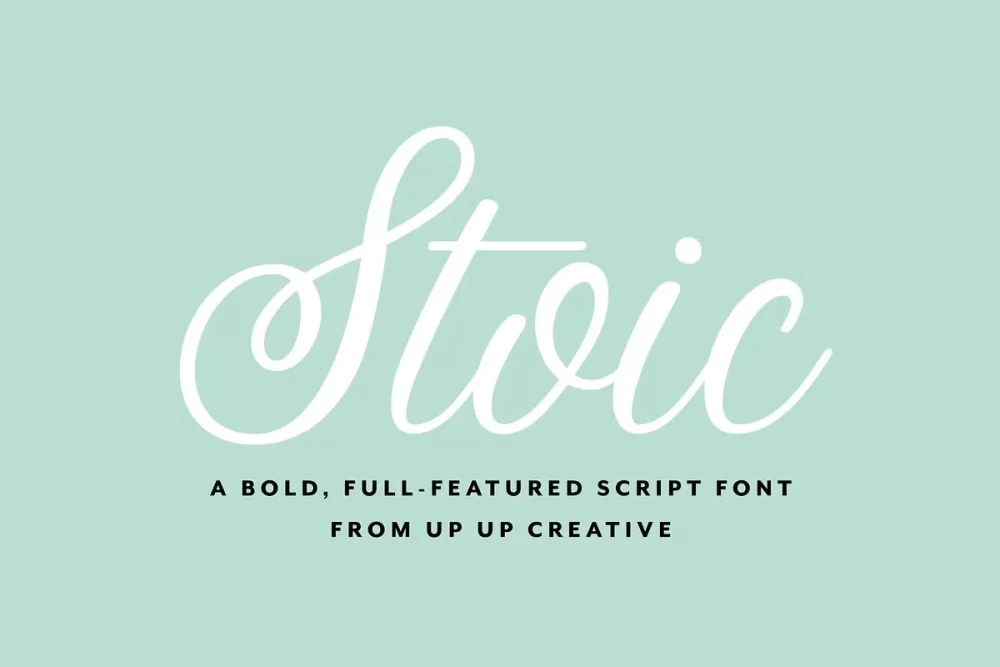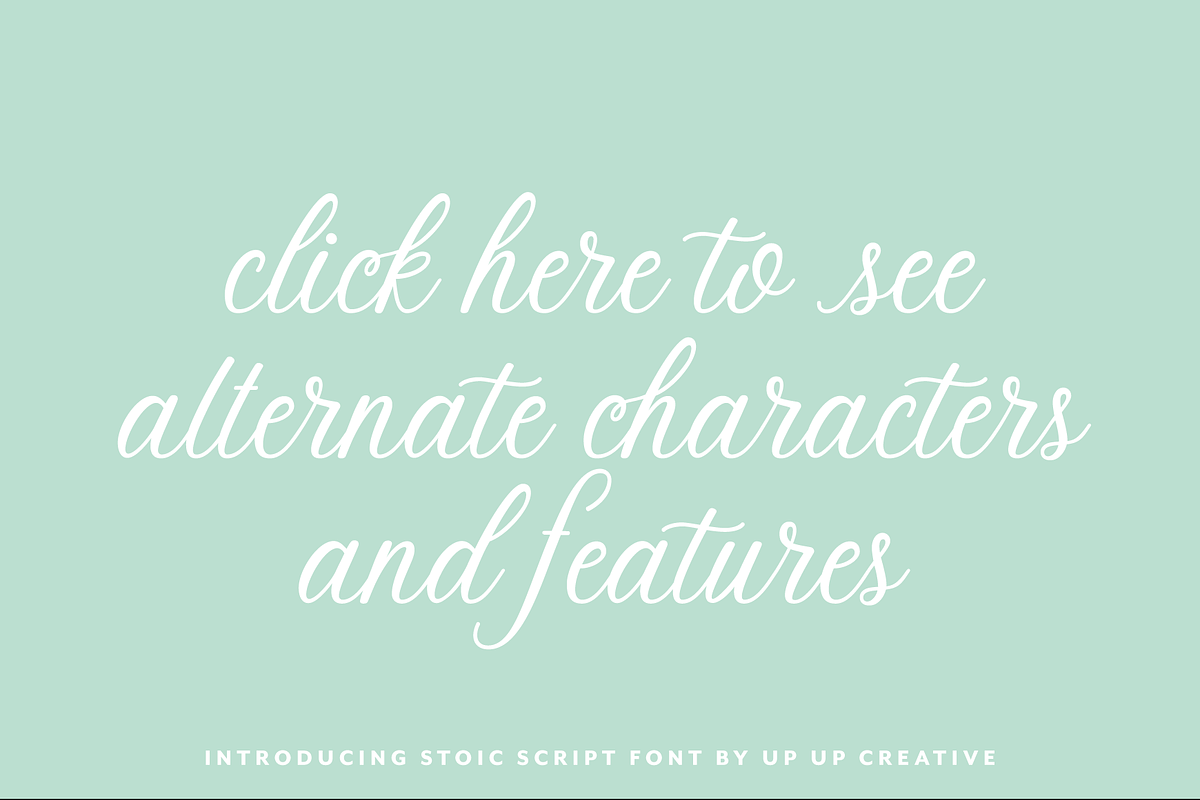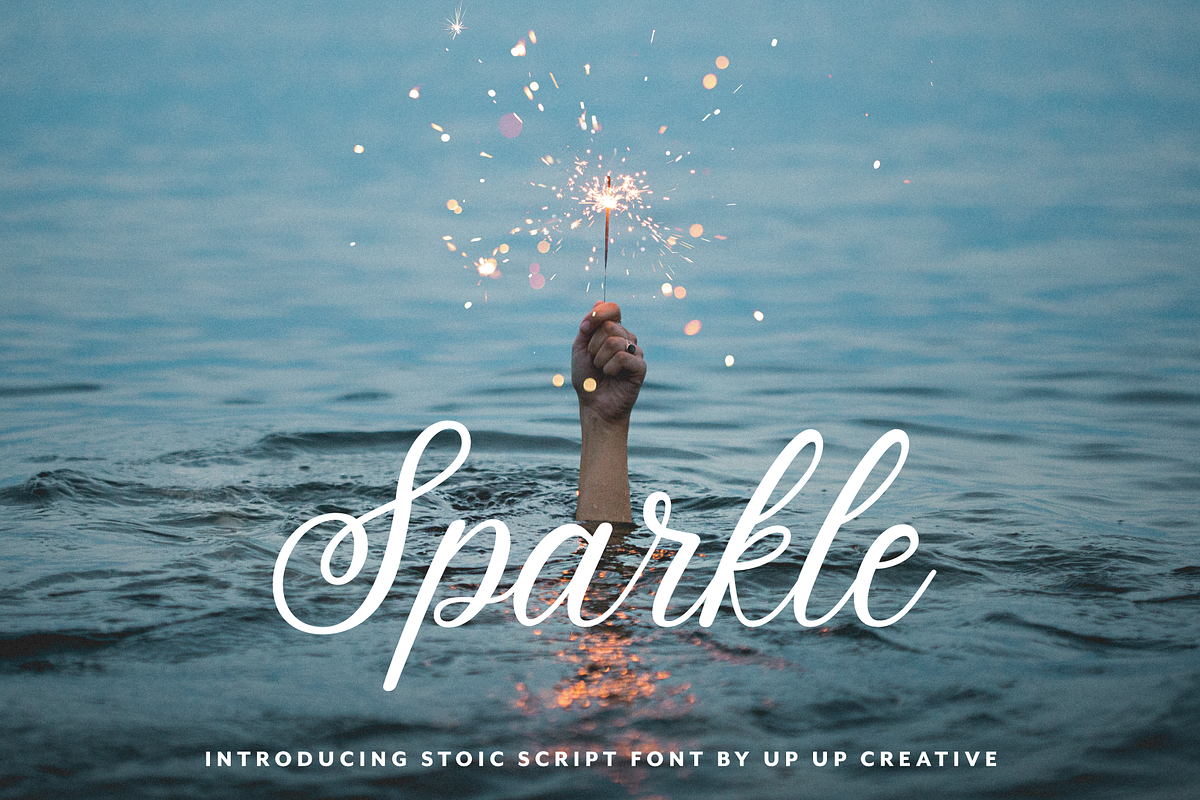
Stoic Script is a bold, full-featured script font with tons of OpenType features. With its smooth connections and considerable charm, Stoic is perfect for logos, wedding invitations, stationery design, branding projects, photo overlays, editorial features, and more.
Stoic comes with more than 550 glyphs! Specific OpenType features include contextual alternates, stylistic alternates, initial and final forms, multiple alternate glyphs for many letters (accessed through the glyphs panel), multilingual support (including multiple currency symbols), three ampersands, 101 standard and discretionary ligatures, and standard numbers.